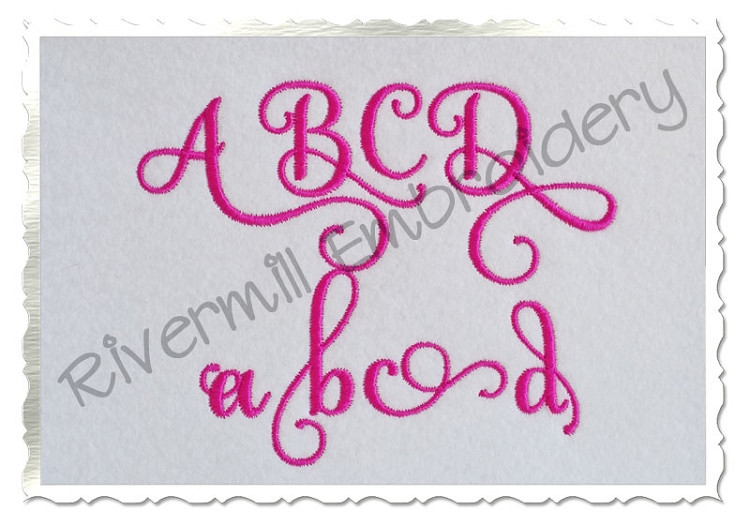
Samantha Script Alternate Letters (Set 3) Machine Embroidery Font Alphabet
They can be used alone also, but because of all the swirls...some combinations of letters may not look exactly right together if you don't use some of the more plain letters that are included in the basic set.
The alphabet sizes included are 1, 2, and 3" (to match the sizes in the basic set), however these letters are quite a bit larger because of all the extra swirls and flourishes. If you are using a 4x4 hoop...the 1" sized letters will all fit individually...however there most of the 2 and 3" sized letters are too large for that hoop size.